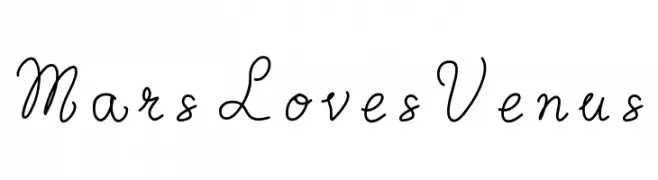
A bold, decorative font with a striped, three-dimensional effect.
A bold, artistic font with distinctive curves and flourishes.
A bold, dynamic serif font with sharp serifs and a slightly condensed form.
A playful, handwritten script font with smooth, flowing lines.
A playful, bubbly font with rounded characters and a whimsical style.
A playful, marshmallow-like font with rounded, bubbly characters.
A modern, geometric stencil font with bold, angular lines and a futuristic aesthetic.
A graceful handwritten script font with elegant, fluid letterforms.